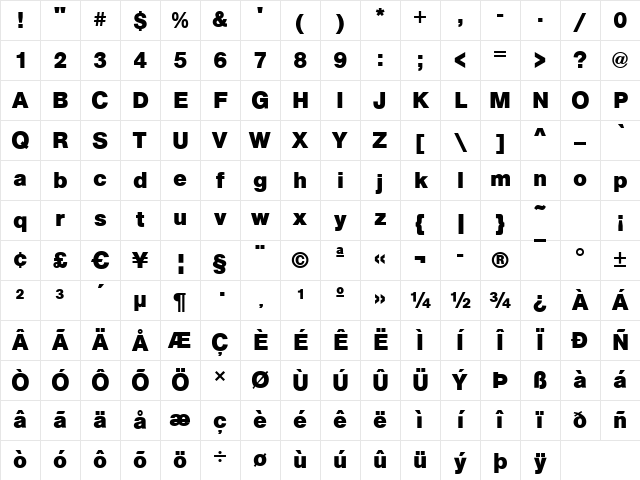
Arezzo-Bold Regular
Arezzo-Bold Family
Design Context for Arezzo-Bold
Arezzo-Bold is a composed and adaptable typeface that performs quietly and consistently across a wide range of design contexts. Its bold stroke weight gives it real presence on the page.
Pro Tip: Use Arezzo-Bold in both headline and body roles to test its range before committing to a single application.